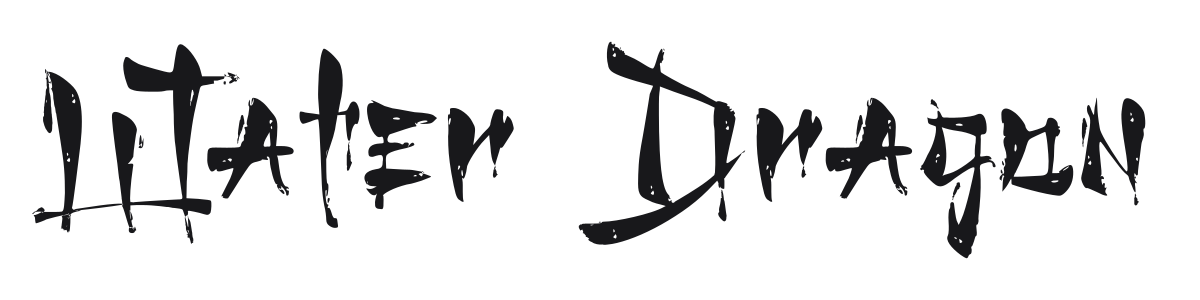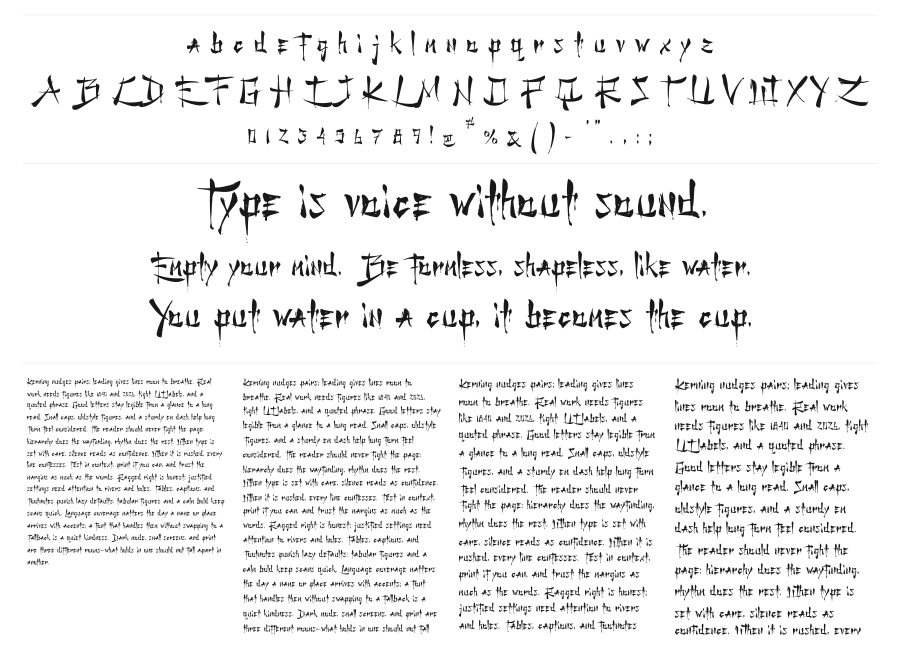
Water Dragon
Water Dragon is an ink-brush script inspired by the spontaneous energy of East Asian calligraphy. Each character carries the raw texture of bristle drag and ink splatter, creating a sense of movement and controlled chaos. It brings authentic brushwork energy to posters, titles, and branding that needs an edge.